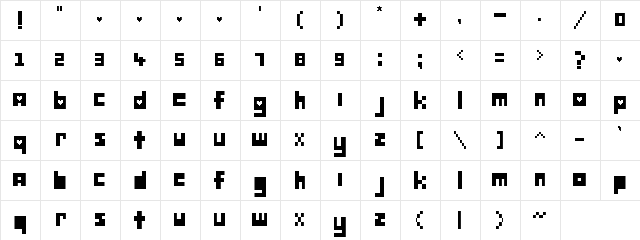
Deltarune Regular
Design Context for Deltarune Typeface
Deltarune takes a measured approach to typography — its balanced proportions and neutral character make it a reliable workhorse for both digital and print work.